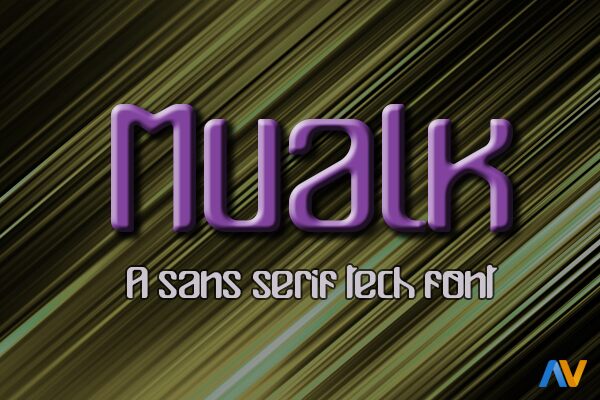
Mualk
Mualk is a captivating display font designed by Alberto Villanueva, exuding a distinct futuristic flair. With its bold, geometric letterforms and sharp, angular edges, this font commands attention and evokes a sense of technological sophistication.
The seamless flow of its characters and the subtle interplay of positive and negative space create a visually striking, yet balanced aesthetic. Mualk's versatility shines through, making it a compelling choice for a wide range of design applications, from cutting-edge branding and packaging to dynamic digital interfaces and impactful event graphics.
This font's striking visual impact and avant-garde sensibility make it a standout option for designers seeking to elevate their projects with a bold, forward-thinking typographic solution.